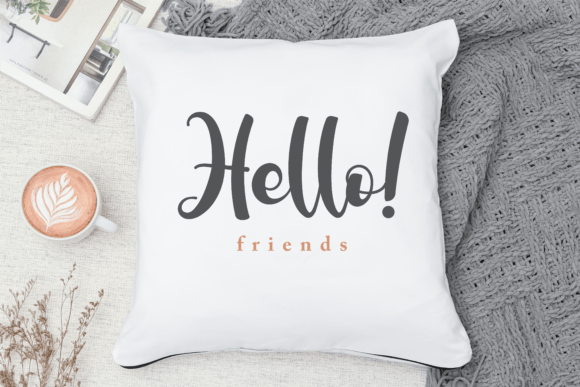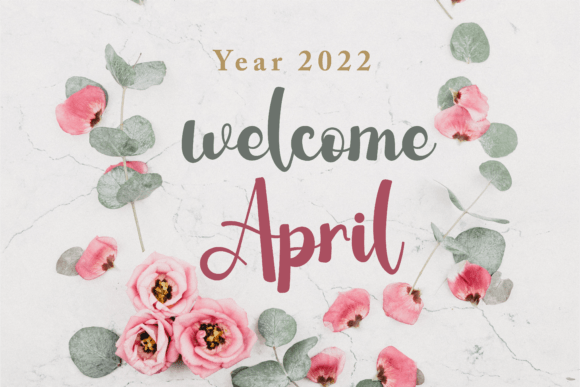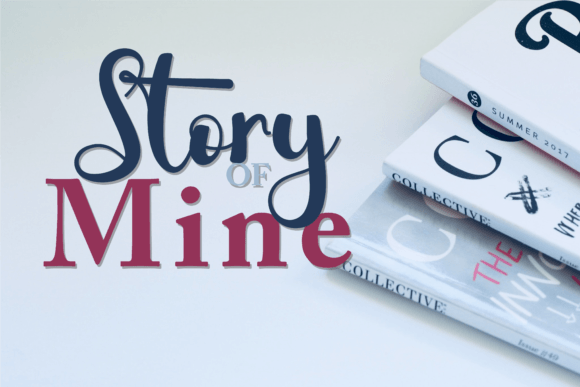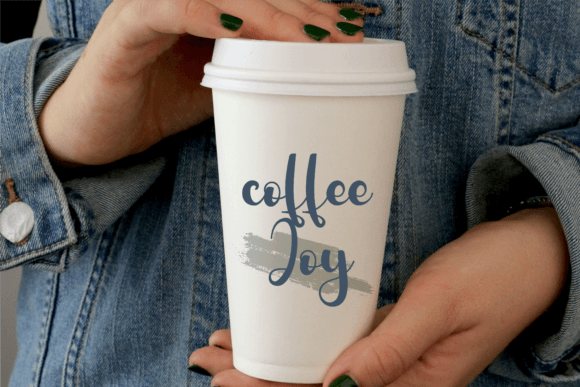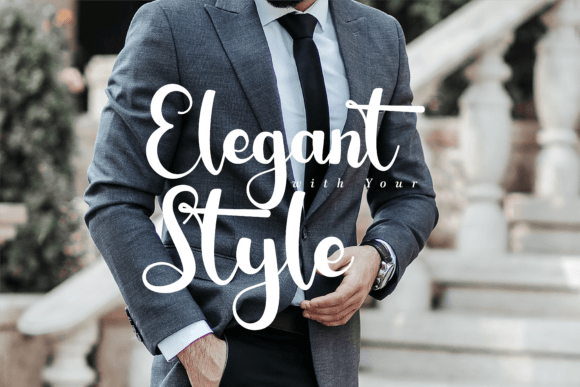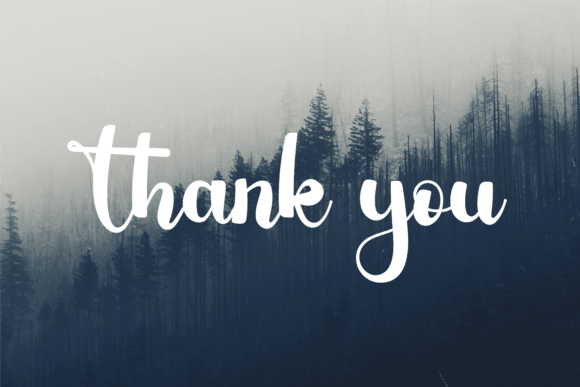
Introduction to Legend Font
Legend is a beautiful handwritten font.
Use it for wall displays, wedding invitations, social media posts, logos, advertisements, product packaging, product designs, labels, photography, watermarks, invitations, stationery, and any project that requires impressive typography .
Key Features of Legend Font
Why Choose Legend Font?
Legend Font offers exceptional quality and versatility, making it a valuable addition to your design toolkit. Whether you’re creating for personal projects or commercial use, Legend Font delivers professional results.